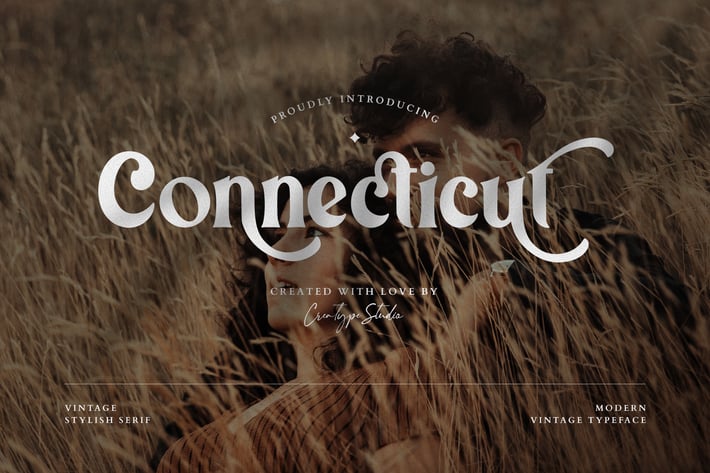
Connecticut Modern Vintage Typeface
Connecticut Vintage Stylish Serif is a modern vintage serif font with a 60s to 70s feel that looks very stylish and very elegant.
Connecticut is perfect for branding projects, logo, wedding designs, social media posts, advertisements, product packaging, product designs, label, photography, watermark, invitation, stationery and any projects that need handwriting taste.
Ton of glyphs
Ligature & Alternate